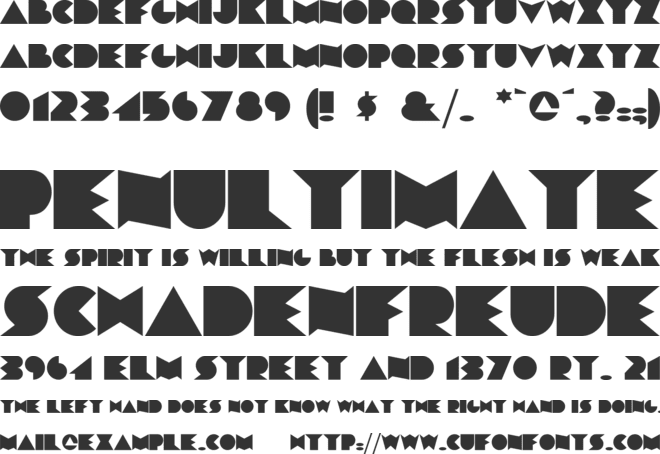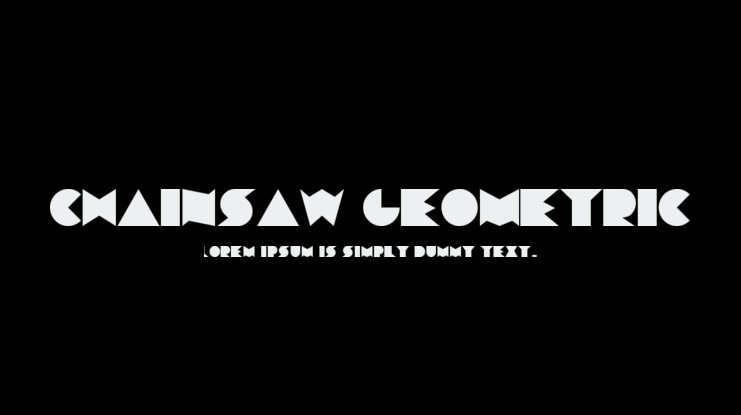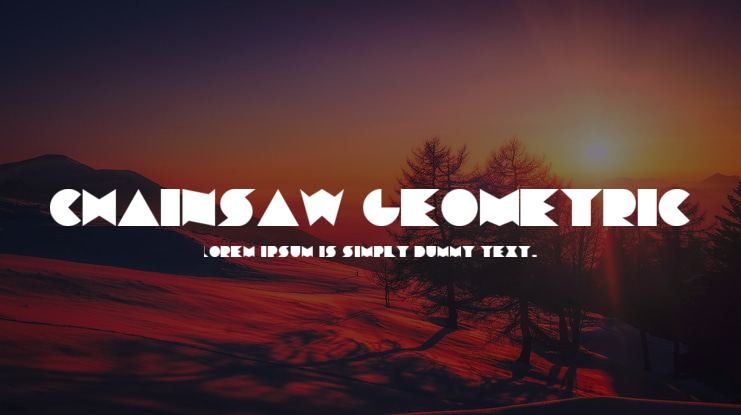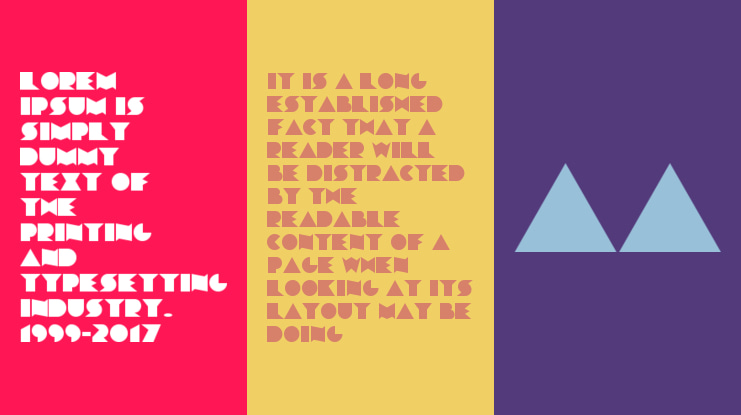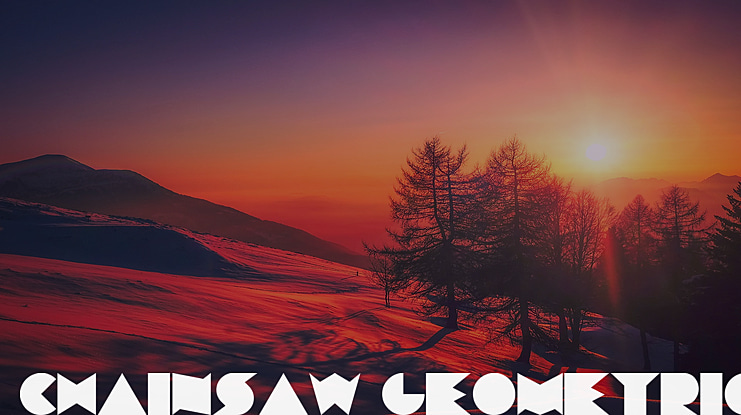
Chainsaw Geometric Font
Based on some untitled studies of 1923 by a French typographer known simply as Draim, this font is definitely an exercise in minimalism, describing letterforms with the fewest transitions possible. Despite its quaint charm, the font can look quite up-to-date --- another example, I suppose, of âeverything old is new again.â